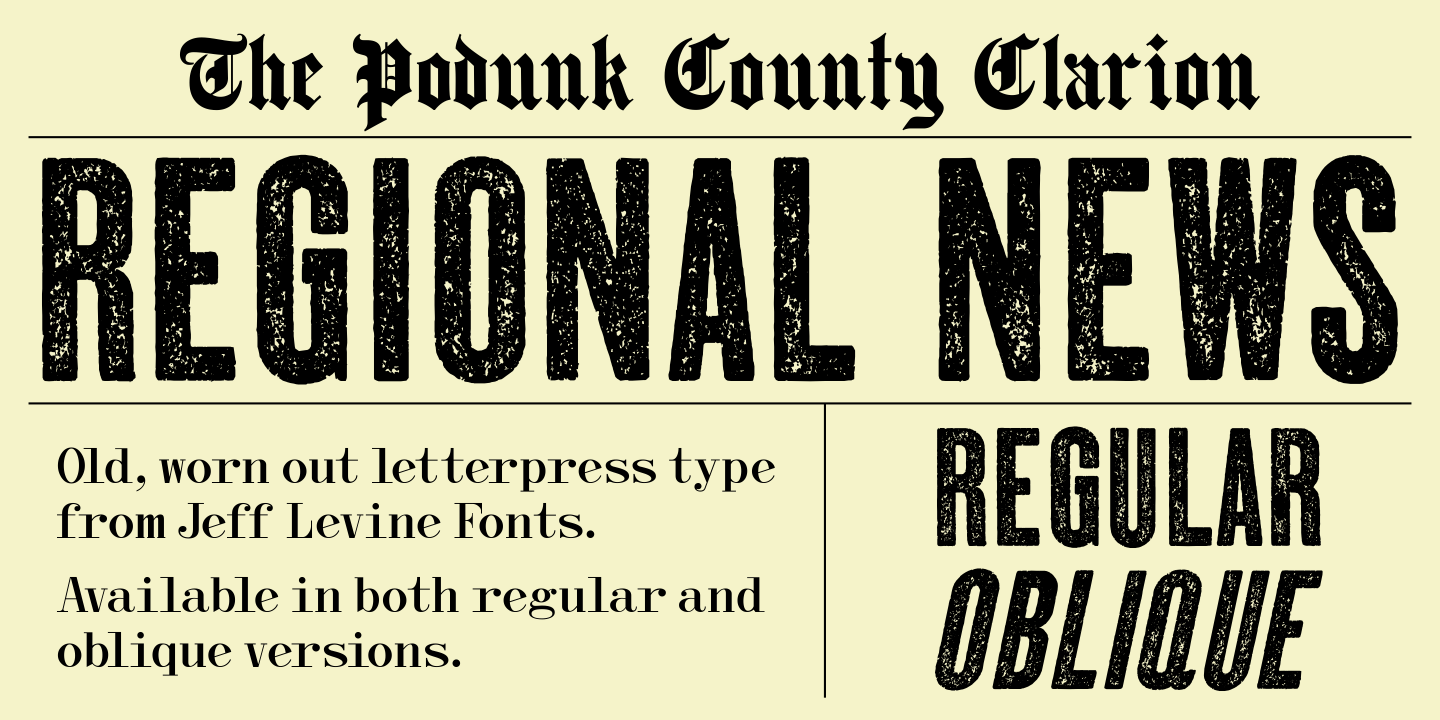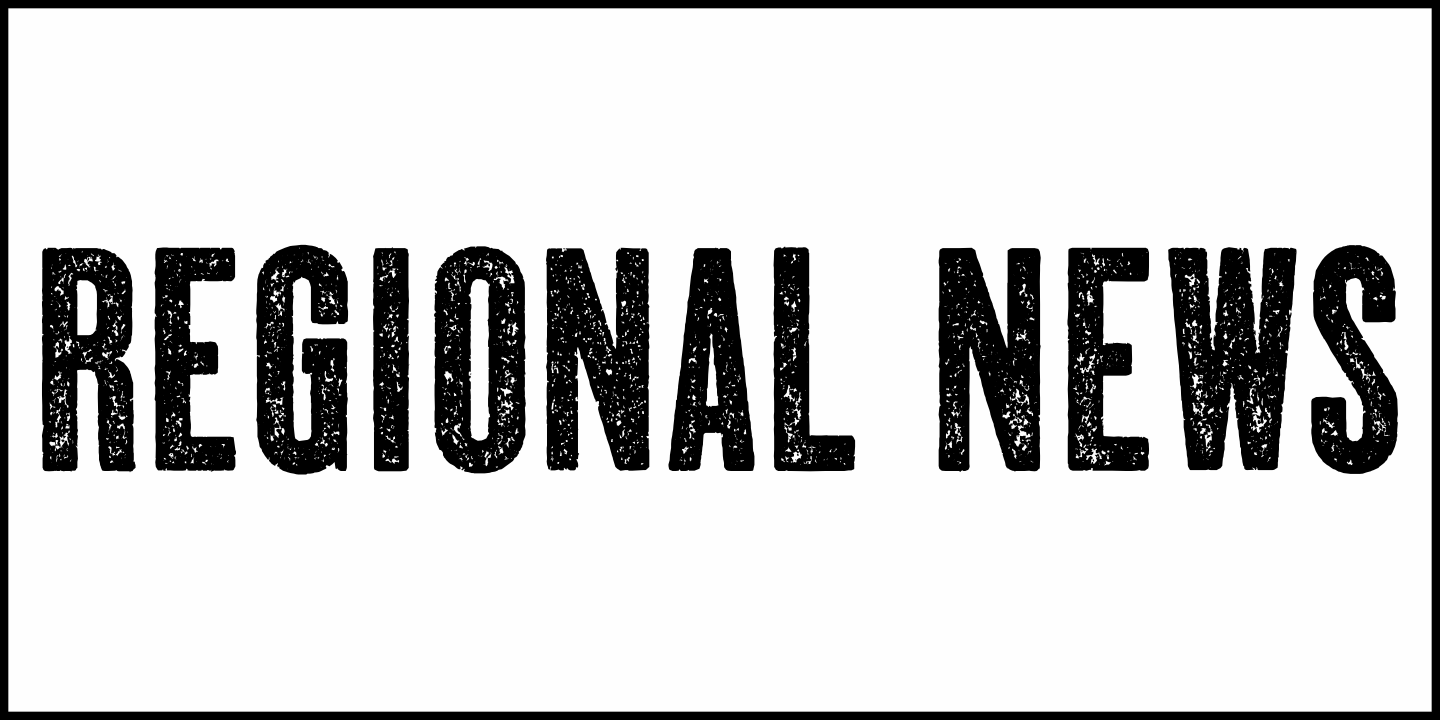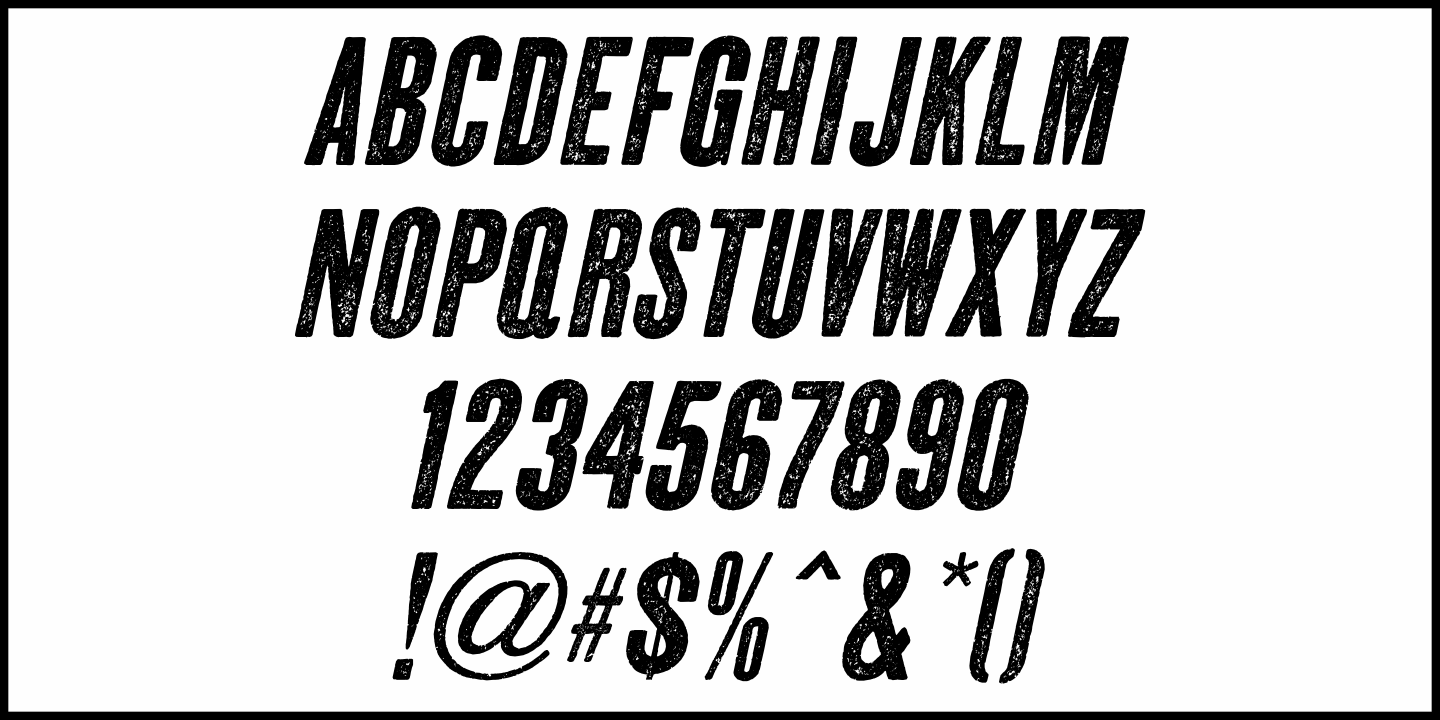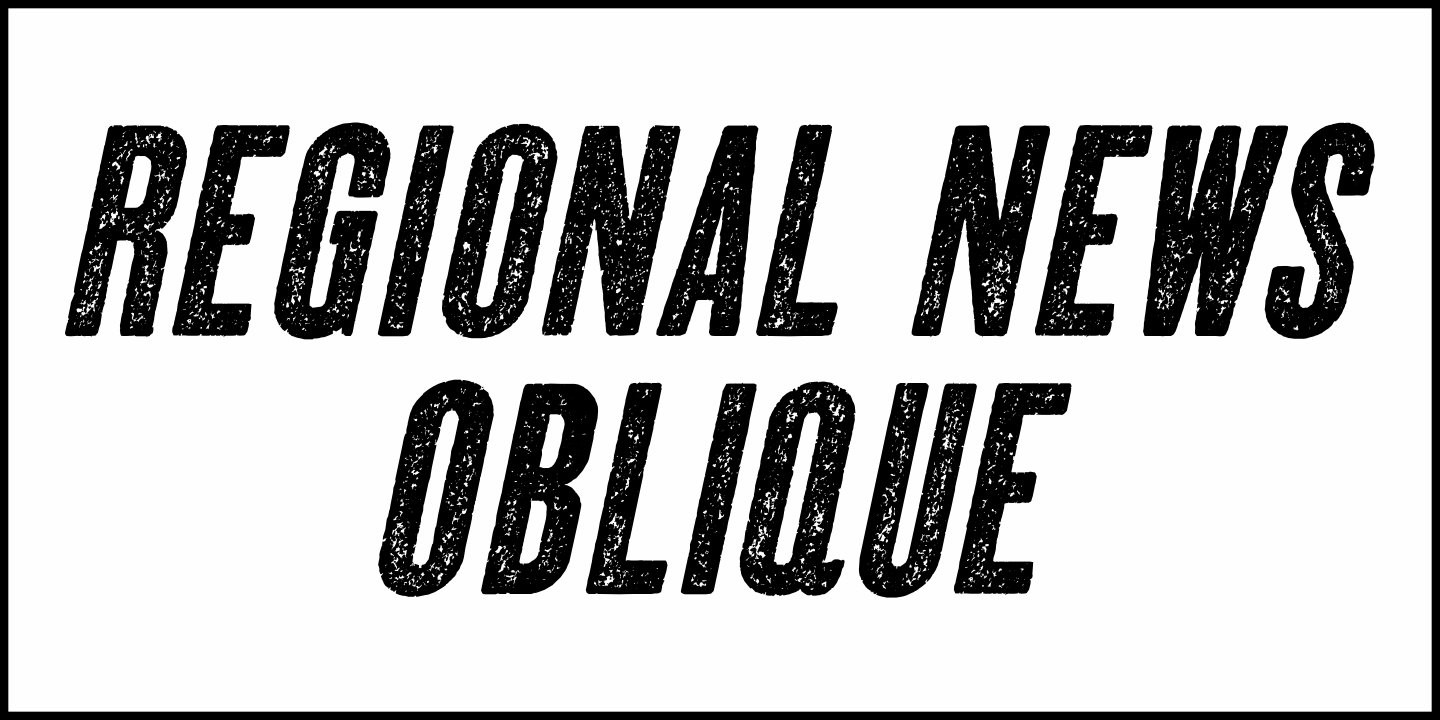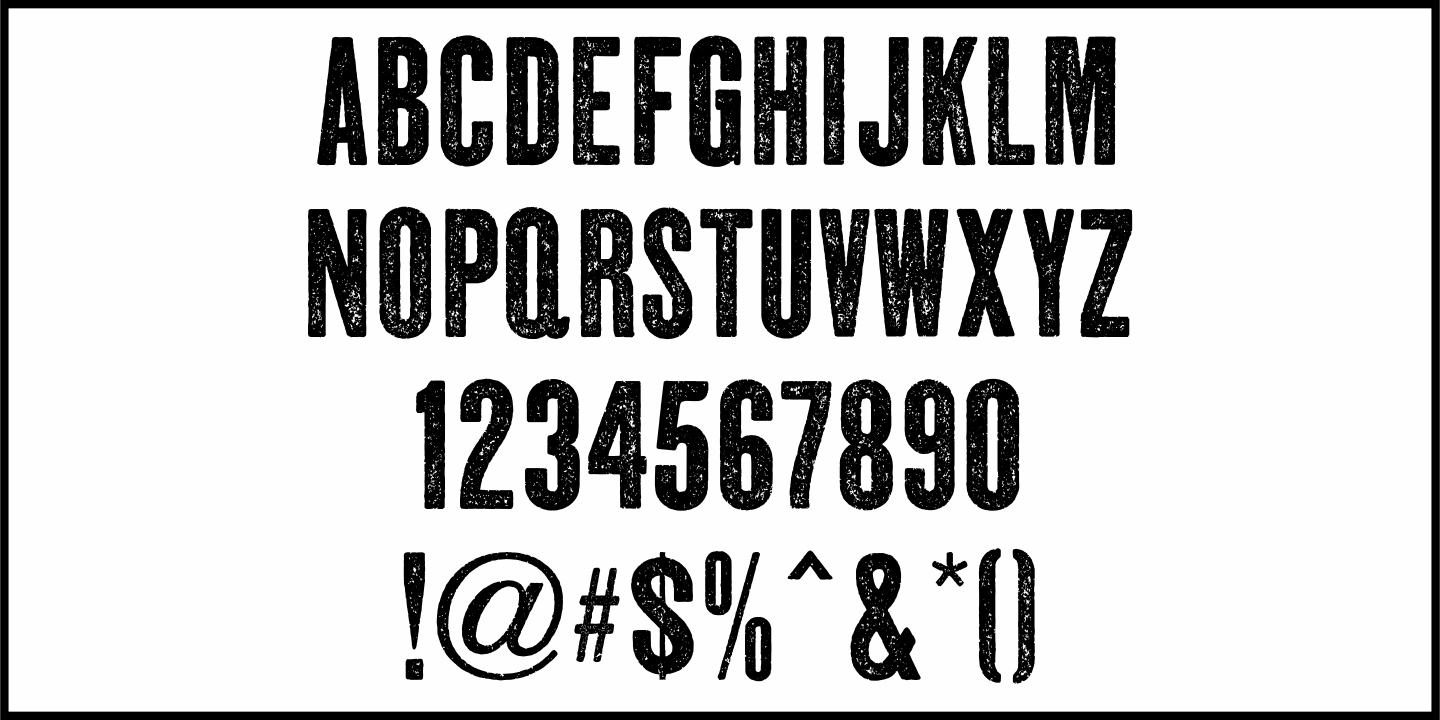
Regional News
A roughened and worn version of Daily Tabloid JNL was originally created as a non-exclusive custom font for a client.
The design emulates the look of old letterpress wood type and has now been released commercially as Regional News JNL; available in both regular and oblique versions.